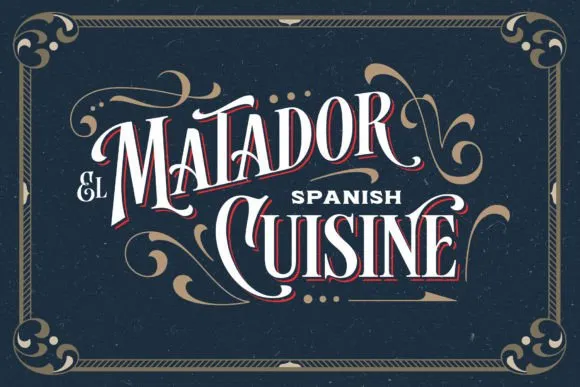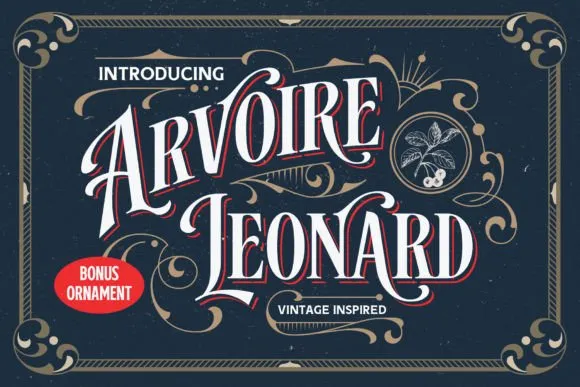
Free Arvoire Leonard Font
The spic and span investigation motivated by the typography from the nineteenth 100 years, we gladly present Arvoire Leonard Font the advanced classic text style that comes in Normal and Shadow.
Gathered from many references like one of a kind signage, logos, identifications, and dated illustrations. Arvoire Leonard is An all-covers text style, painstakingly created with a rich touch yet at the same time with an exemplary vibe.
Arvoire Leonard is ideal for the majority show purposes. You can involve this text style for banners, marks, logos, billboards, shirts, book covers, improvements, product, and that’s just the beginning!